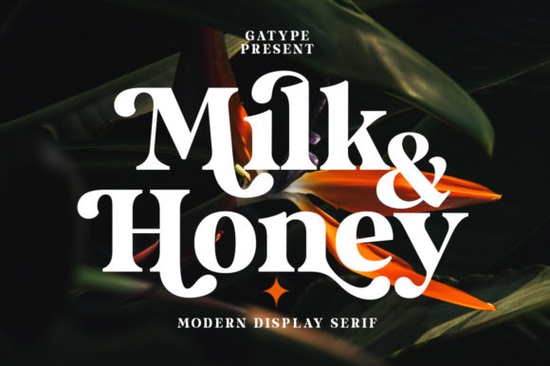
If you're looking for a serif font that balances bold presence with elegant details, the Milk and Honey Font might be exactly what your next project needs. Designed with thick, confident letterforms and subtle serifs, it’s built for creators who want their typography to stand out without sacrificing readability. Whether you’re designing wedding invitations, branding a boutique, or crafting printable wall art, this font offers both style and functionality.
What kinds of projects work best with Milk and Honey?
This font shines in designs where personality matters. Think:
- Branding for cafes, bakeries, or artisanal shops its warm, substantial weight feels inviting and trustworthy.
- Wedding stationery pair it with delicate script fonts for contrast, or let it carry the whole suite with its refined strength.
- Print-on-demand products like mugs, tote bags, or posters where legibility at various sizes is key.
- Social media graphics that need to grab attention without looking overly trendy or dated.
Because it’s a serif font with generous spacing and clear forms, it remains readable even when scaled down unlike some ultra-thin or highly decorative alternatives.
How does it compare to other bold serif fonts?
If you’ve explored Creative Fabrica’s serif collection, you might also like fonts that share a similar balance of weight and elegance. For example, Strong Font offers a more geometric take on bold serifs, while Surfside Paradise leans into vintage charm with softer edges. If you prefer high-contrast letterforms, Richmond Grovelyn delivers dramatic flair, and Sharp History brings a modern editorial feel. Each has its own voice but Milk and Honey stands out for its approachable thickness and smooth curves.
Tips for using Milk and Honey effectively
Even the best font can fall flat if not used thoughtfully. Here’s how to get the most out of it:
- Avoid overusing swashes. The decorative alternates are beautiful, but too many in one line can reduce readability. Use them as accents like on the first letter of a headline or a single word in a quote.
- Pair it wisely. Since Milk and Honey is bold and detailed, pair it with a clean sans-serif (like Montserrat or Lato) or a light, flowing script for contrast. Avoid pairing it with another heavy serif that can create visual clutter.
- Test print sizes. If you’re using it for physical products, print a test sample. Some intricate terminals may blur at very small sizes on low-resolution printers.
- Use tracking and leading generously. Because the letters are thick, giving them a bit more space helps each character breathe especially in body text or short paragraphs.
Remember, this font isn’t meant for long blocks of text (like blog posts or novels), but it excels in headlines, logos, quotes, packaging, and display uses where impact matters.
Who should consider this font?
Milk and Honey is especially useful for:
- Small business owners creating their own branding materials on a budget.
- Print-on-demand sellers designing mugs, shirts, or home decor with typographic focus.
- Crafters making SVG files for Cricut or Silhouette machines its solid strokes cut cleanly.
- Graphic designers needing a reliable, licensable font for client work (check the license for commercial use).
It’s beginner-friendly thanks to its intuitive glyph access, yet detailed enough to satisfy experienced designers looking for nuanced typography.
- Do I need a bold serif that’s both stylish and functional?
- Will my audience respond well to a warm, slightly nostalgic tone?
- Am I planning to use it in contexts where legibility at various sizes matters?